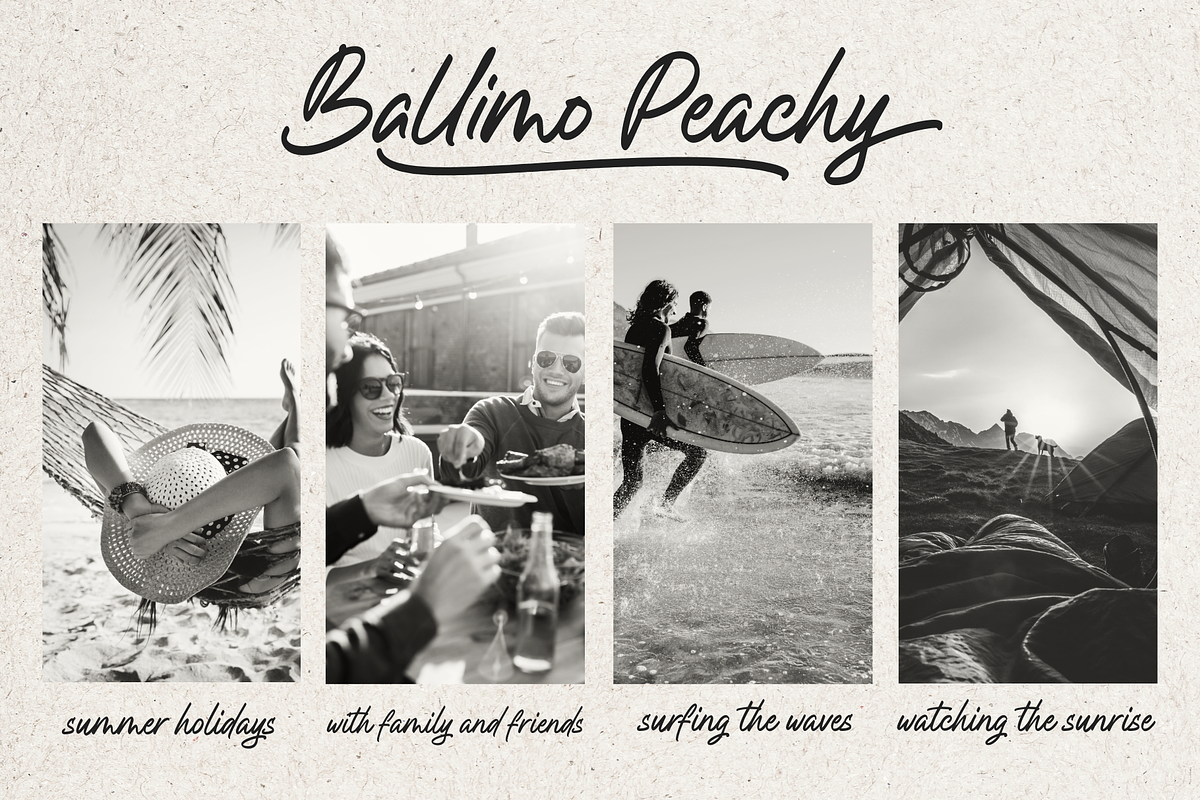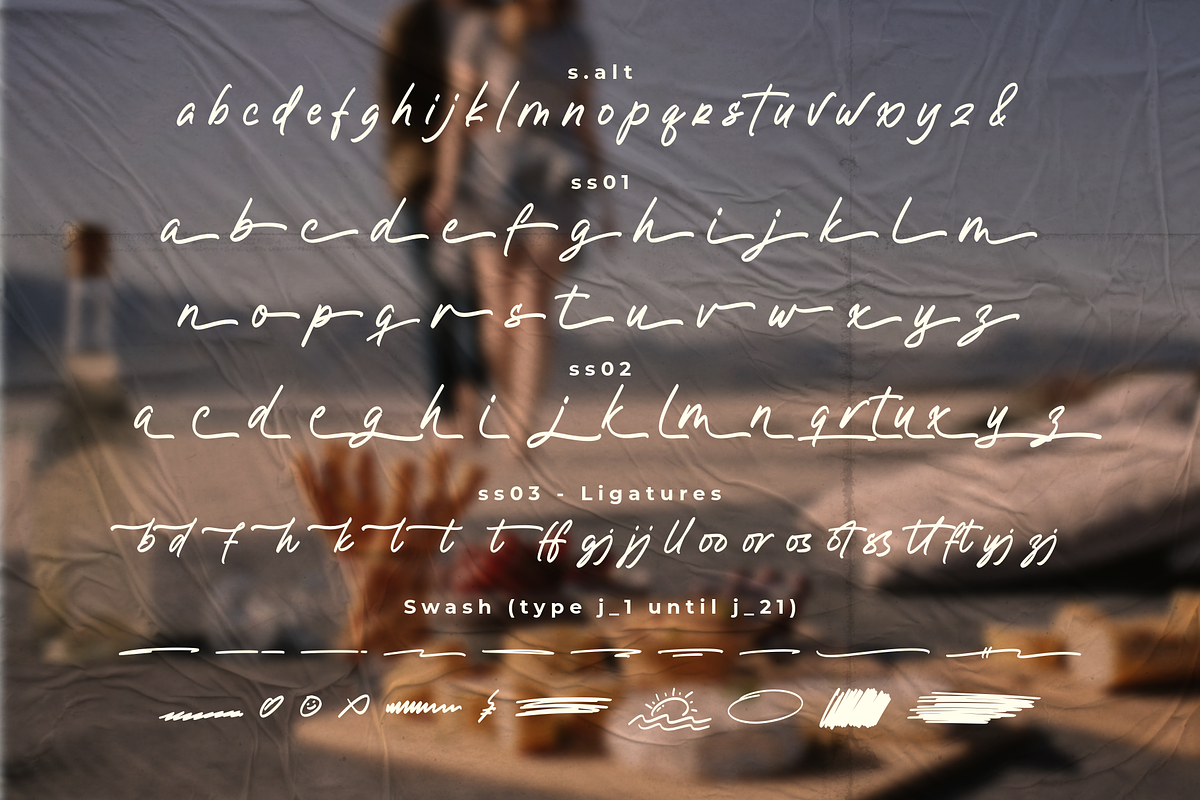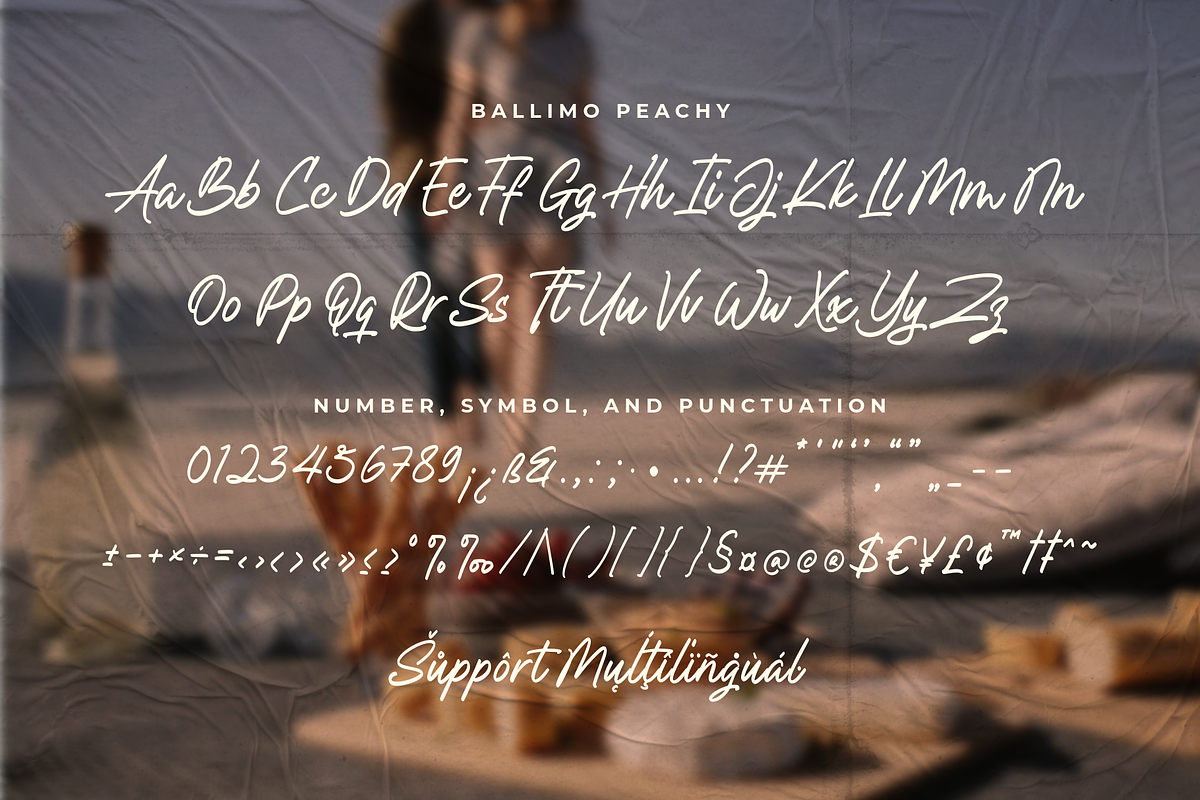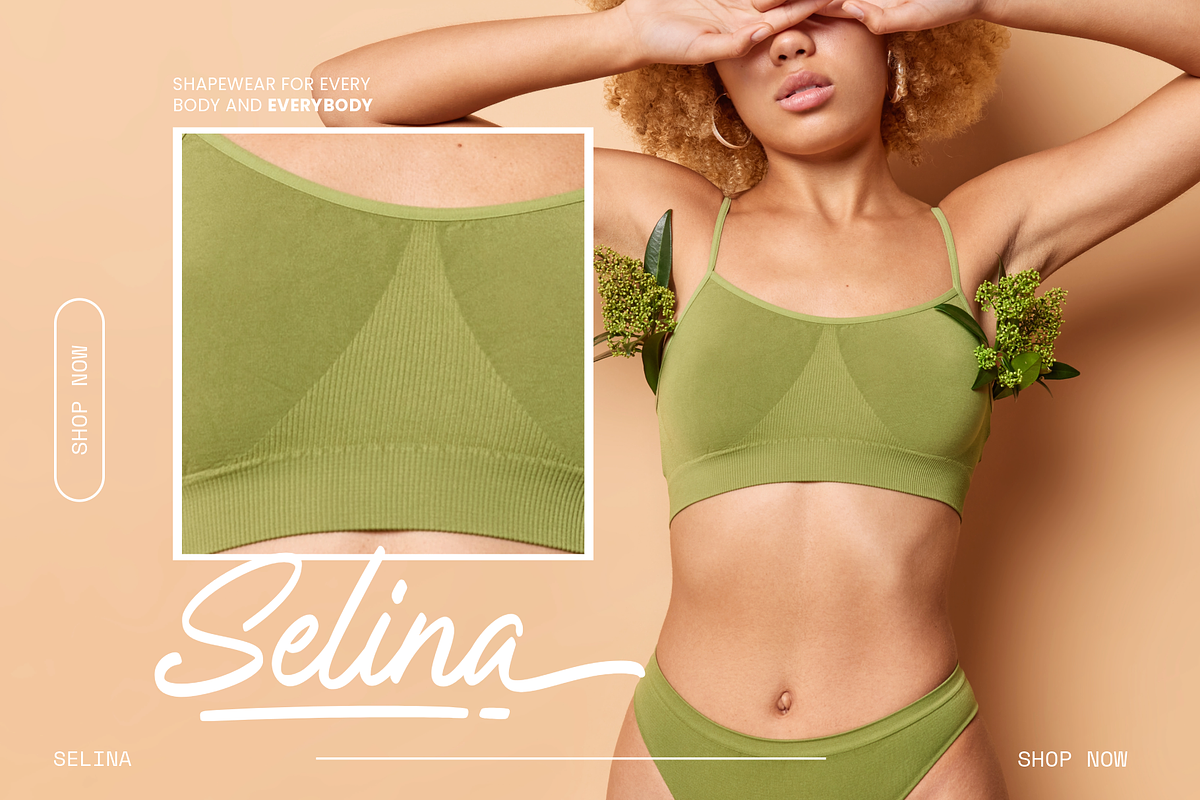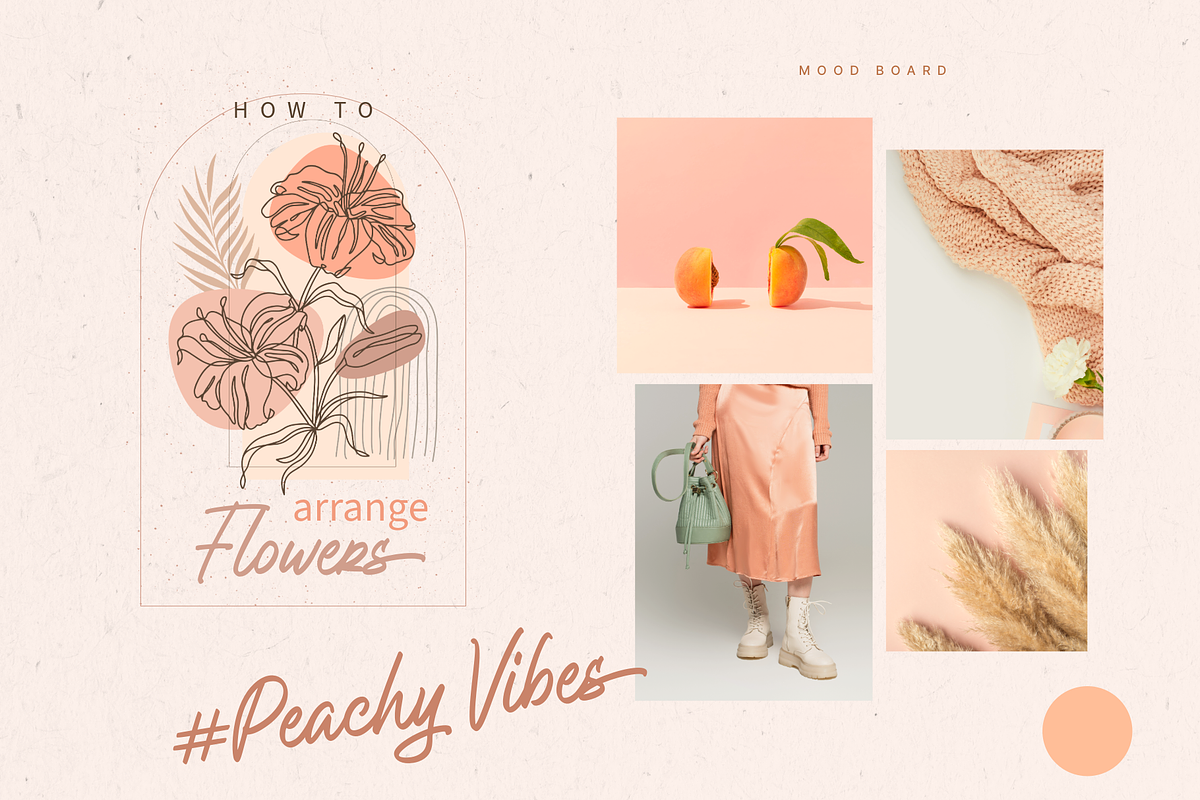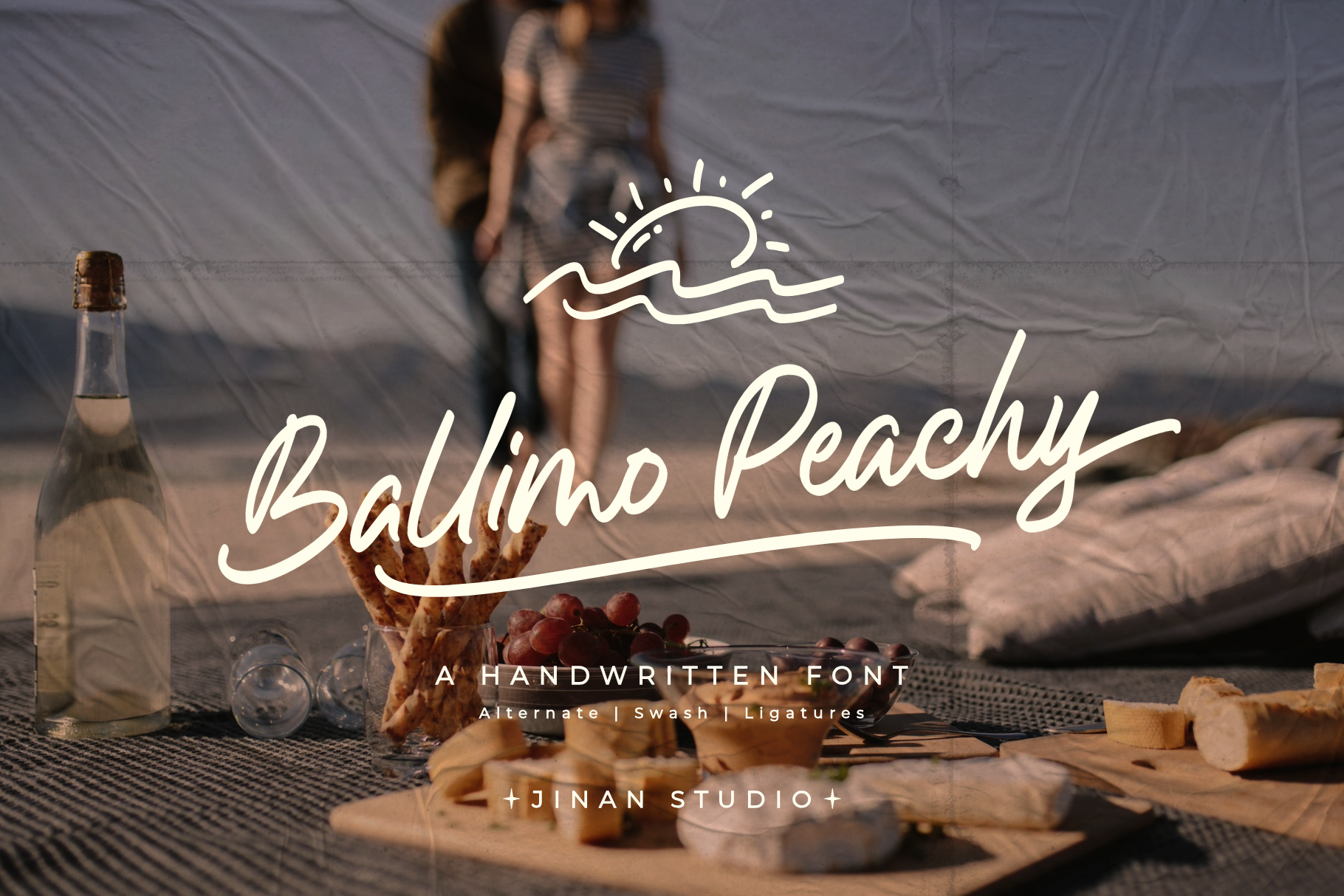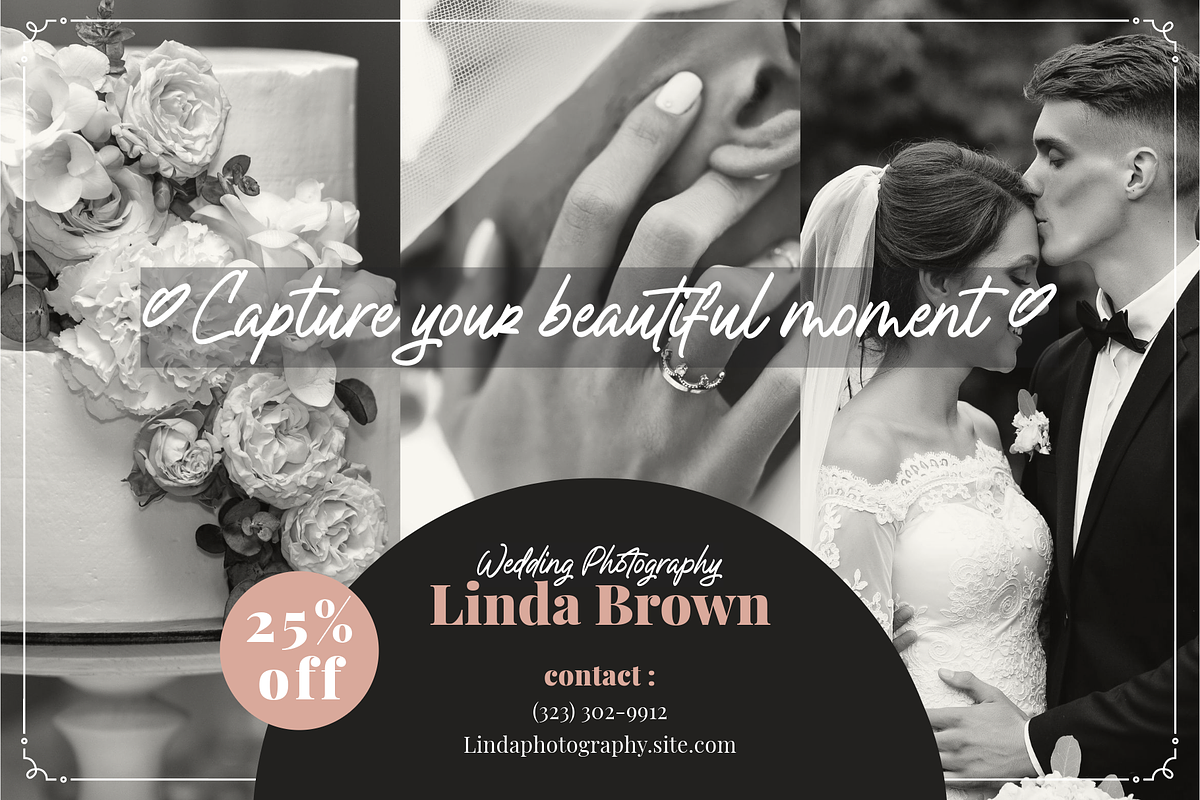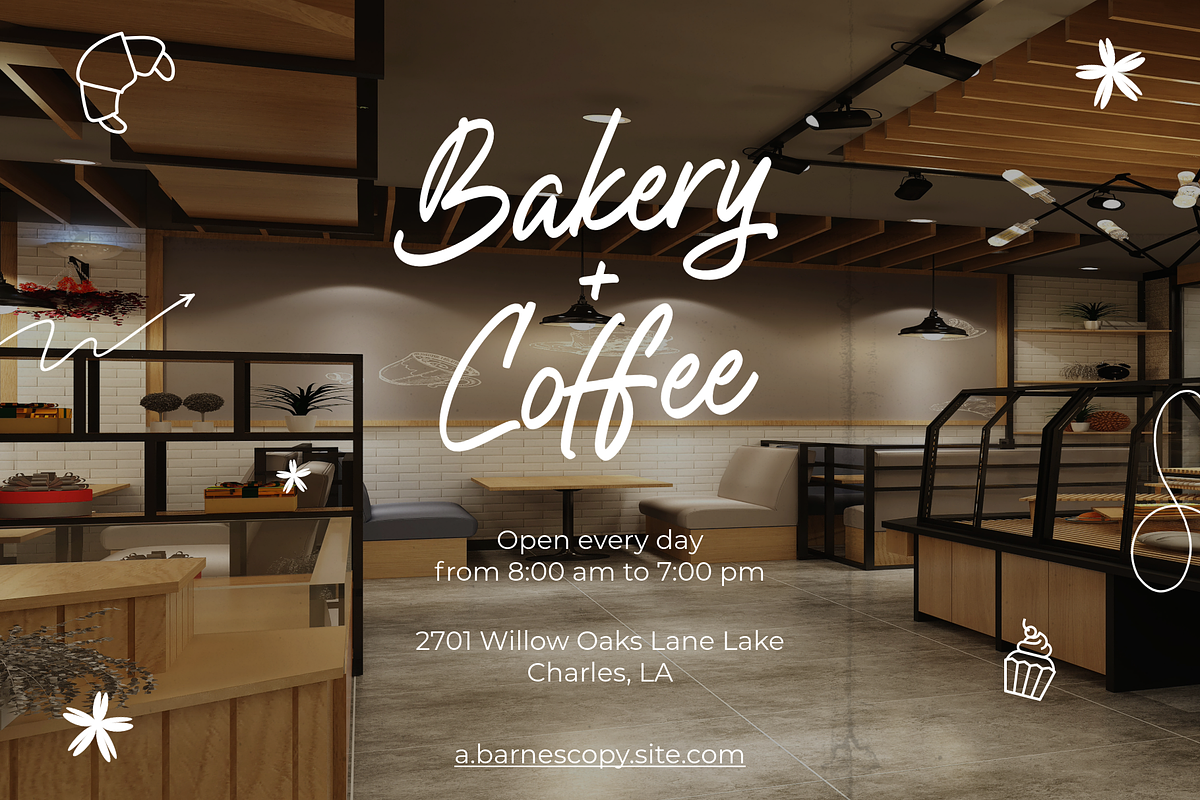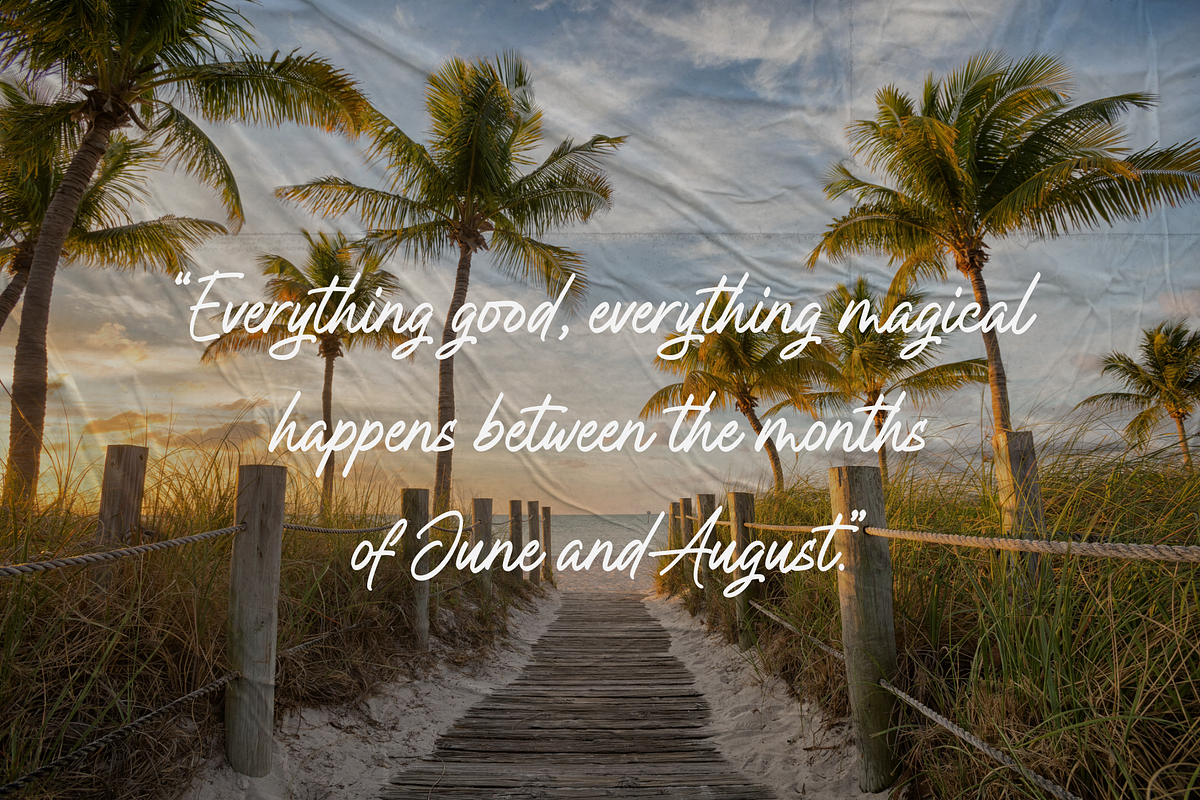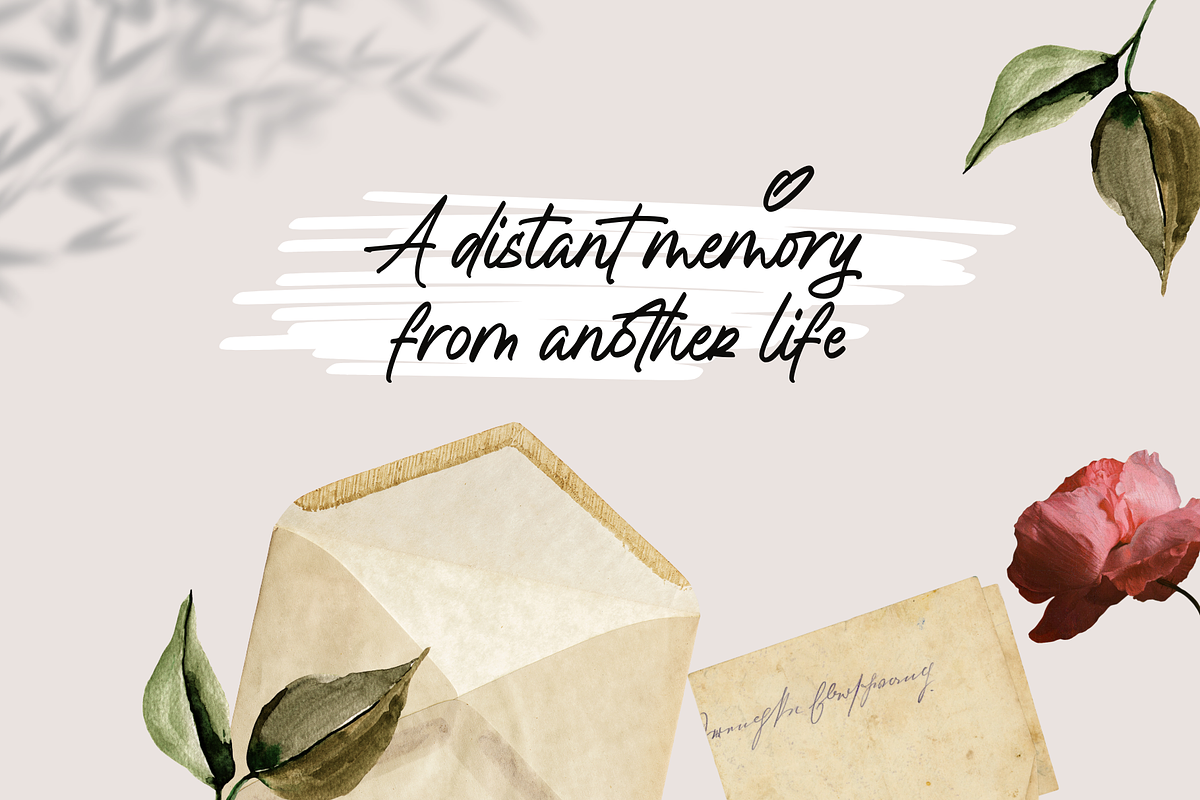
Ballimo Peachy - A Handwritten Font
Immerse your design project in a cascade of sun-drenched warmth with Ballimo Peachy, a delightful handwritten font. Drift lazily on a sea of tranquil aesthetics with its soft, fluid lines symbolic of gentle ocean waves and idyllic beach holidays, effortlessly evoking a serene summer ambience. Ballimo Peachy comes armed with an assortment of alternates, swashes, and ligatures that effortlessly curate a personalized aesthetic to your projects. It truly shines when applied to handwritten elegance on invitations, warm greetings on cards, brand identity designs, and more. Infuse your projects with the nonchalant elegance of Ballimo Peachy; ideal for instilling a relaxed, stylish sentiment that speaks of balmy, seaside retreats. It's your go-to font for effortlessly marrying casual charm with sophisticated style.
- A set of uppercase and lowercase glyphs
- Number, symbol, and punctuation
- Alternates, ligatures, and swashes
Type j_1 until j_21 to features swash, ligatures will automatically replace the standard letter pairs whenever available, when using any OpenType capable software.